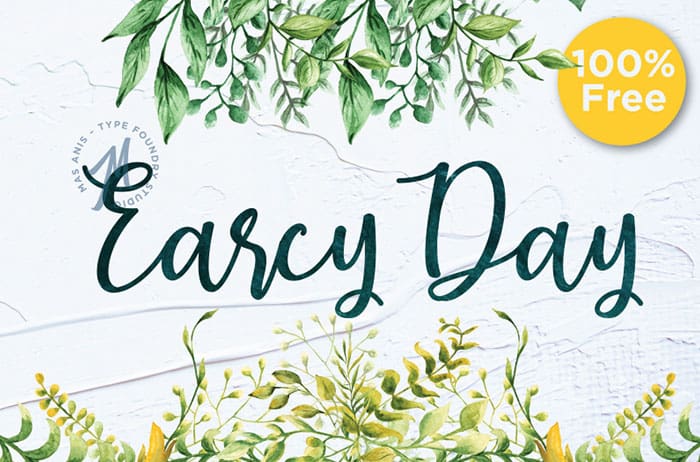
Earcy Day Script Font
Earcy Day Script Font that is very fresh and unique style handmade. Earcy day font is perfectly suited to logo, stationery, poster, apparel, branding, wedding invitation, card, tagline, layout design, and much more. Designed this font by Mas Anis. You can also search more freeĀ Script Fonts.